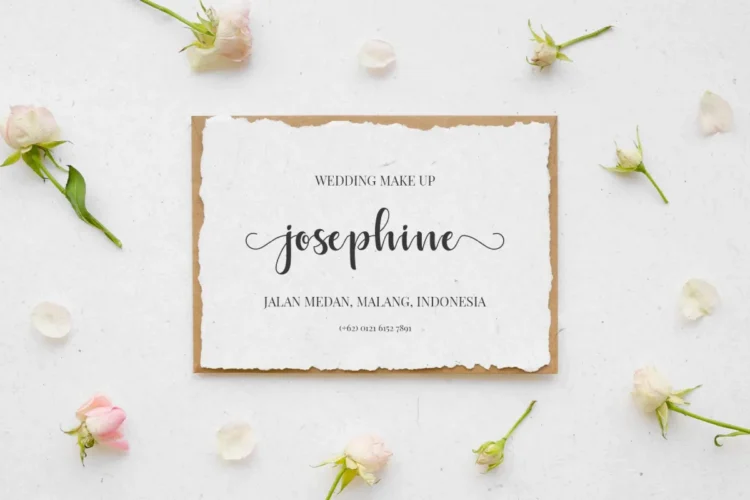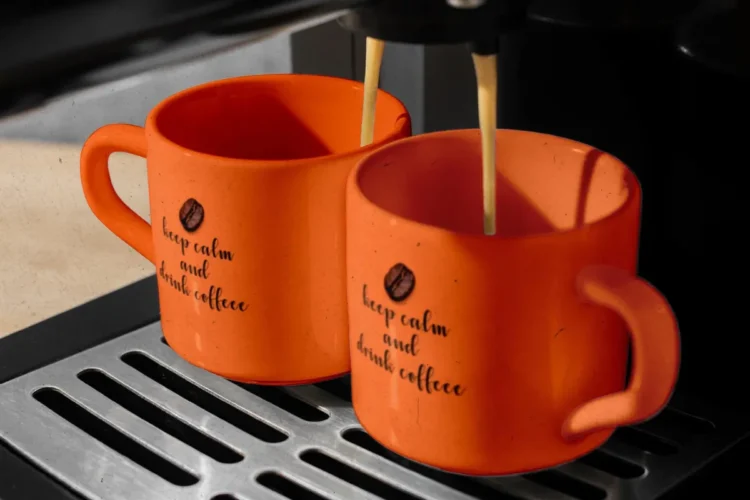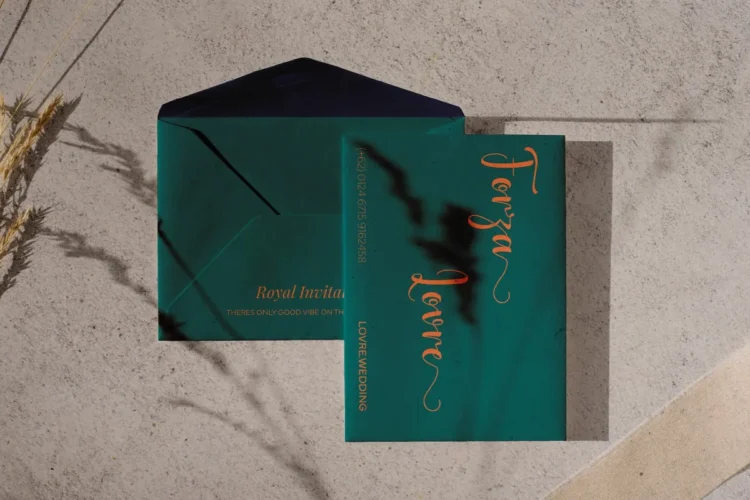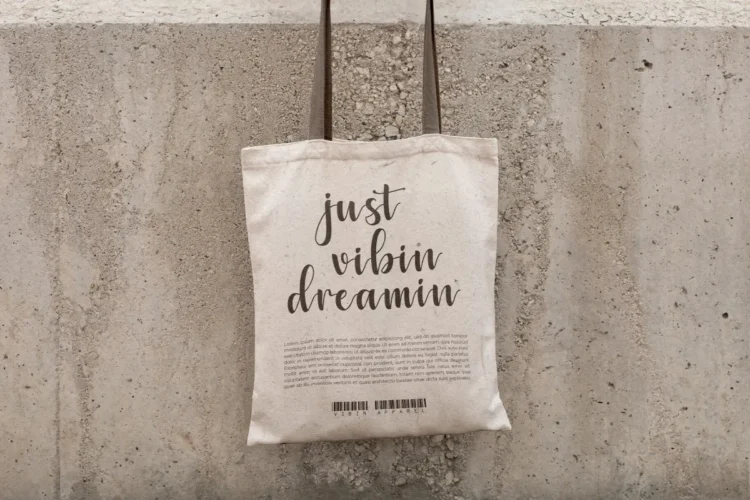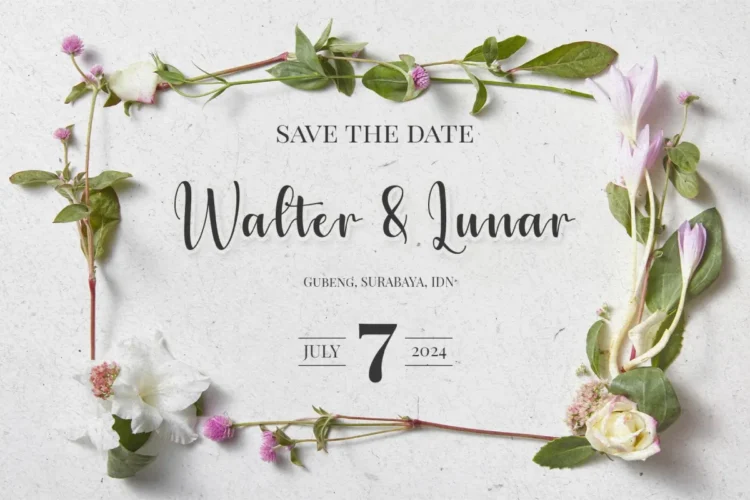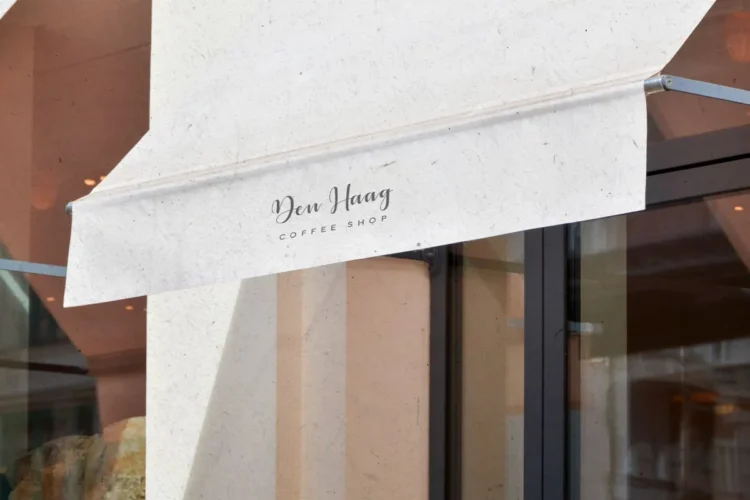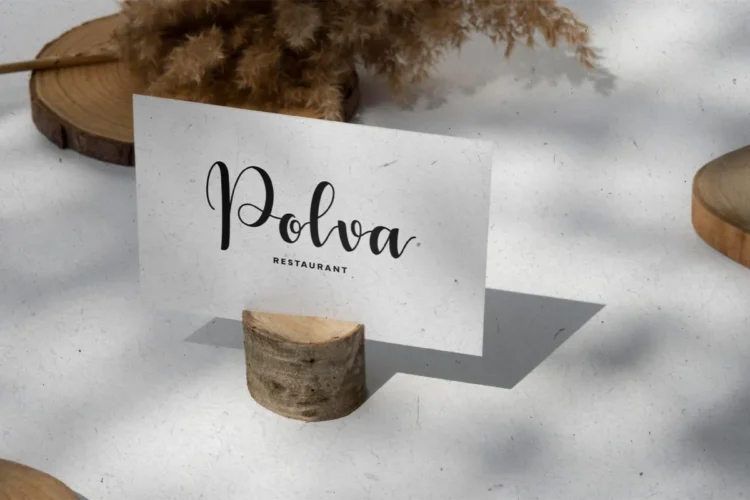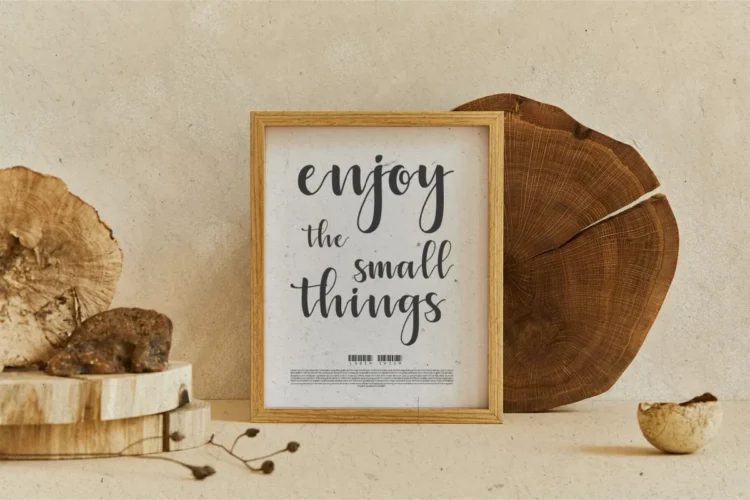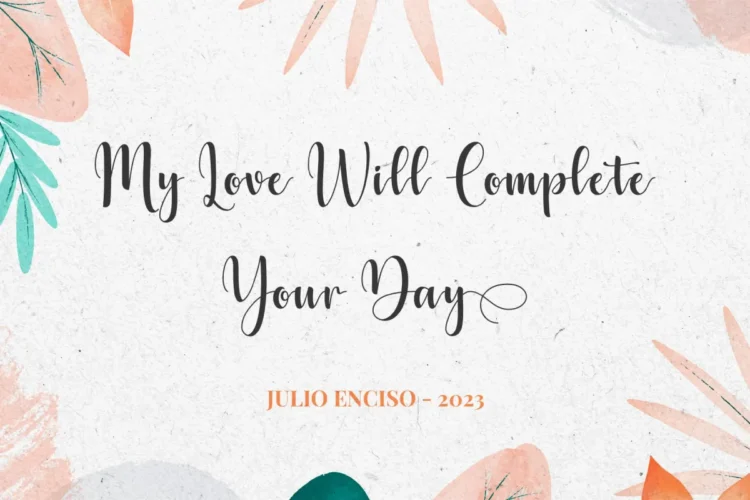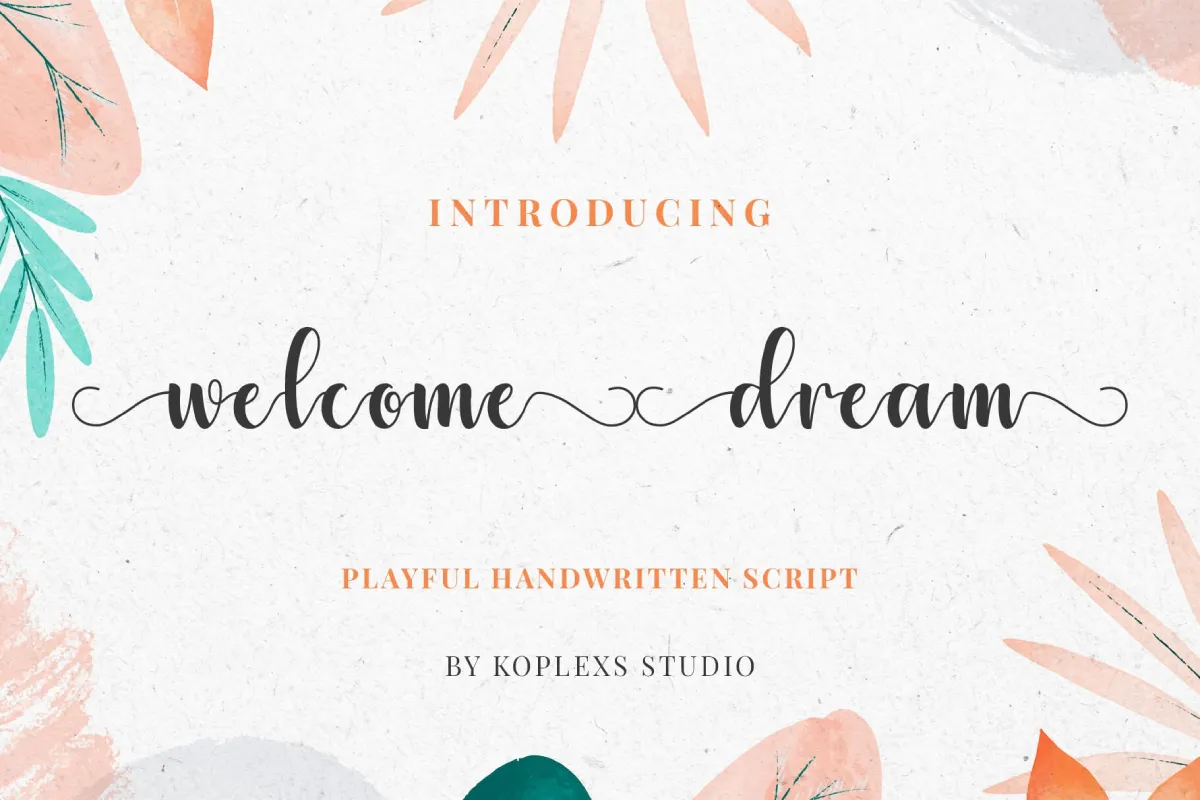
Welcome Dream Font – Elegant Handwritten Script Font for Wedding, Branding & Luxury Design
There’s something timeless about handwriting that instantly makes a design feel more personal, warm, and memorable. Welcome Dream Font was created to capture that feeling through elegant curves, smooth strokes, and a naturally flowing script style.
This beautiful script font combines the charm of a real handwritten signature with the sophistication of modern calligraphy. Every letter is designed carefully to create a soft and luxurious look while remaining easy to read and versatile for many creative needs. Whether you are building a romantic wedding invitation, designing a premium logo, or creating aesthetic social media content, this Handwriting Font brings a graceful and artistic touch to your work.
With its balanced character shapes and stylish swashes, Welcome Dream Font feels feminine, modern, and effortlessly elegant. The font carries a natural handwritten rhythm that makes designs feel authentic instead of overly formal. It works beautifully for both minimalist layouts and luxury branding concepts.
As a modern Signature font and cursive font, Welcome Dream Font is ideal for designers, business owners, creators, and crafters who want typography that feels stylish yet approachable. Its clean handwritten flow gives your projects a premium appearance while maintaining a soft and friendly personality.
Welcome Dream Font is versatile and works beautifully for :
Wedding & Romantic Design
- Wedding invitations
- Save the date cards
- Bridal branding
- Wedding signage
- Thank you cards
Branding & Business
- Logo font
- Branding font
- Boutique logos
- Cosmetic font packaging
- Fashion labels
- Luxury product branding
Creative Projects
- Social media posts
- Instagram quotes
- Website headers
- Product packaging
- Café and restaurant branding
- Tote bags, mugs, and merchandise
Printable & Decorative Design
- Wall art
- Posters
- Greeting cards
- Planner designs
- Stickers and crafts
Create designs that feel elegant, personal, and unforgettable with Welcome Dream Font.